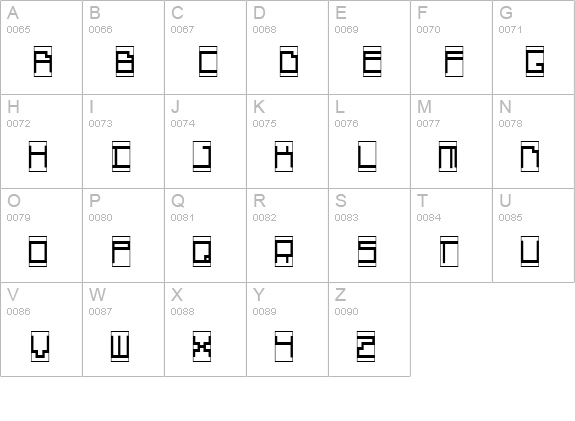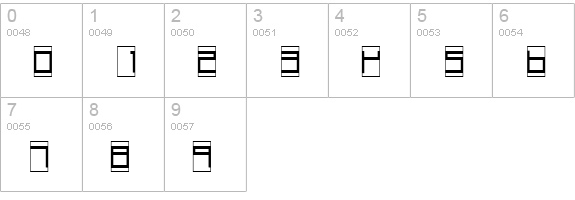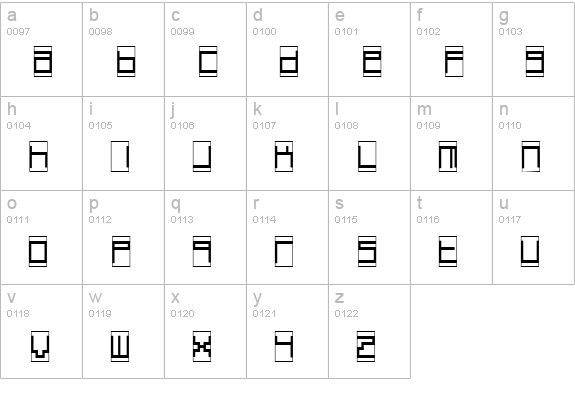
Introducing Box Top font, a modern and versatile typeface perfect for adding a touch of elegance to your designs. This unique font features clean lines and a bold aesthetic that will make your projects stand out. Whether you're creating logos, posters, or branding materials, Box Top font is sure to make a statement. And the best part? Box Top font is completely free to download at FontsMarket.com! This means you can easily access this stylish font and use it in your creative projects without any cost. Don't miss out on this amazing opportunity to enhance your designs with the sleek and sophisticated Box Top font. Download it today and start creating stunning visuals that will leave a lasting impression.